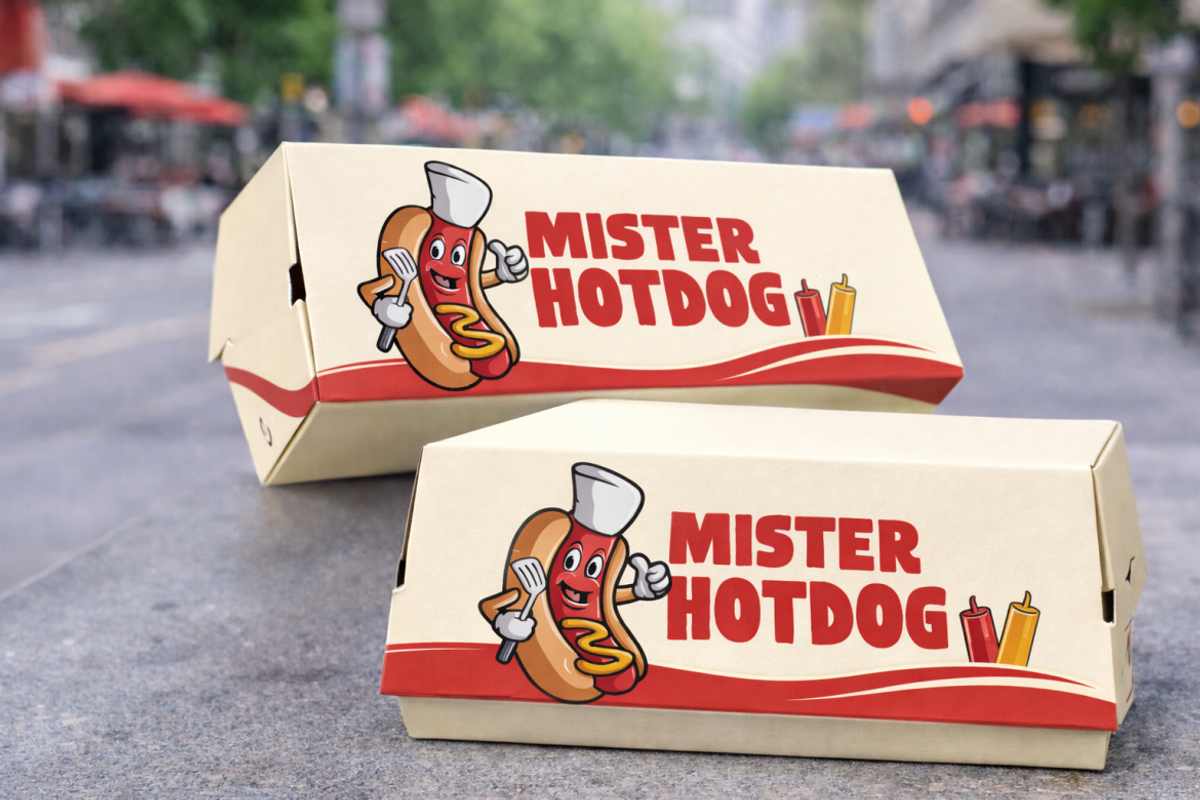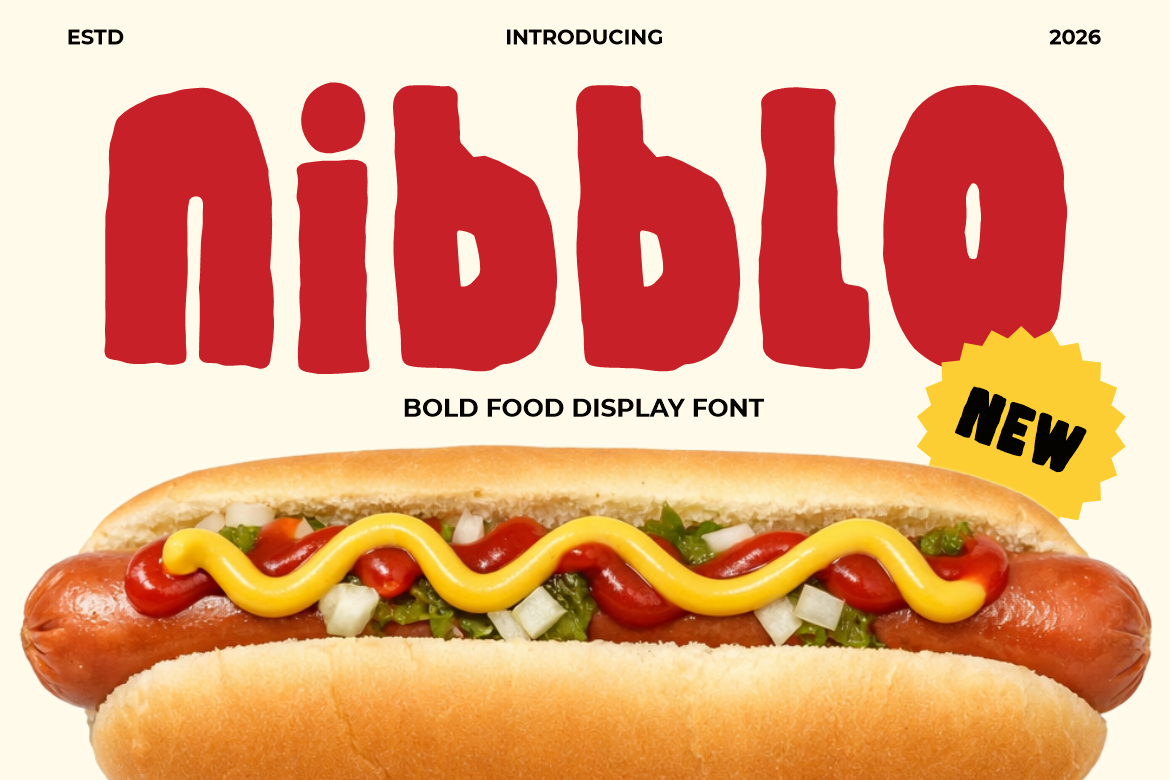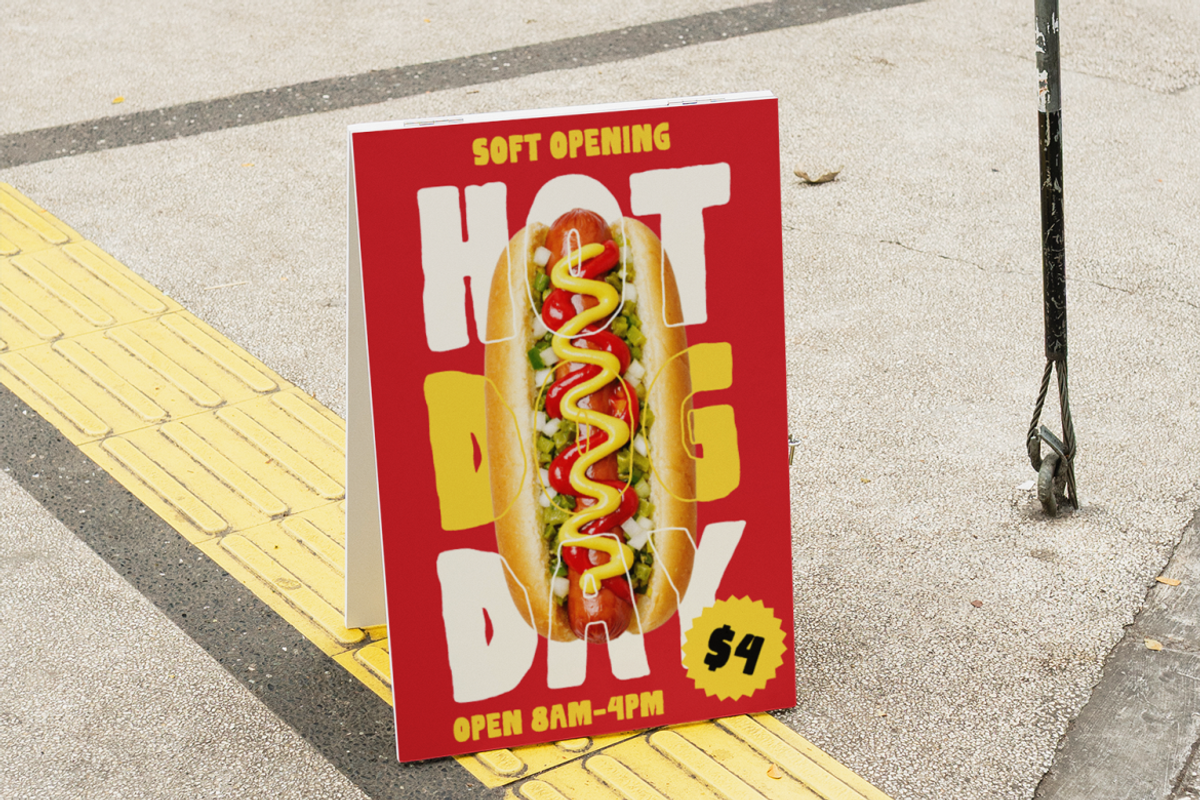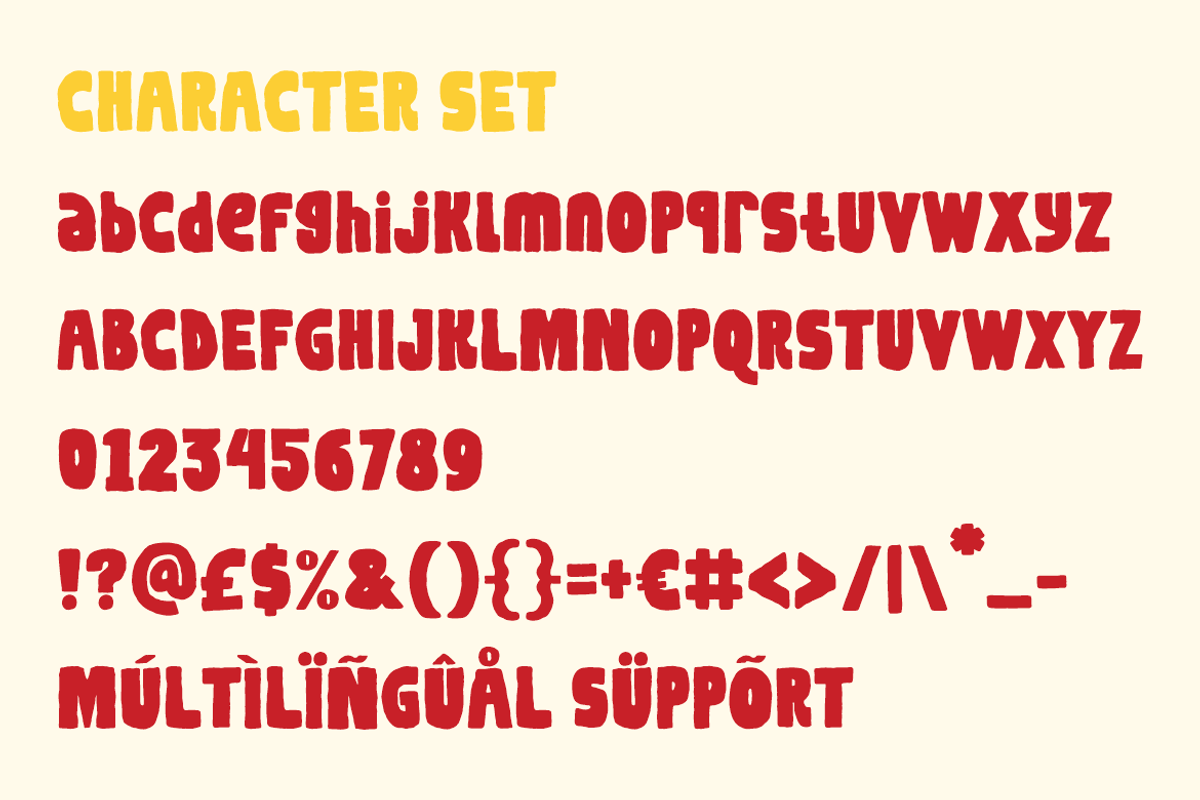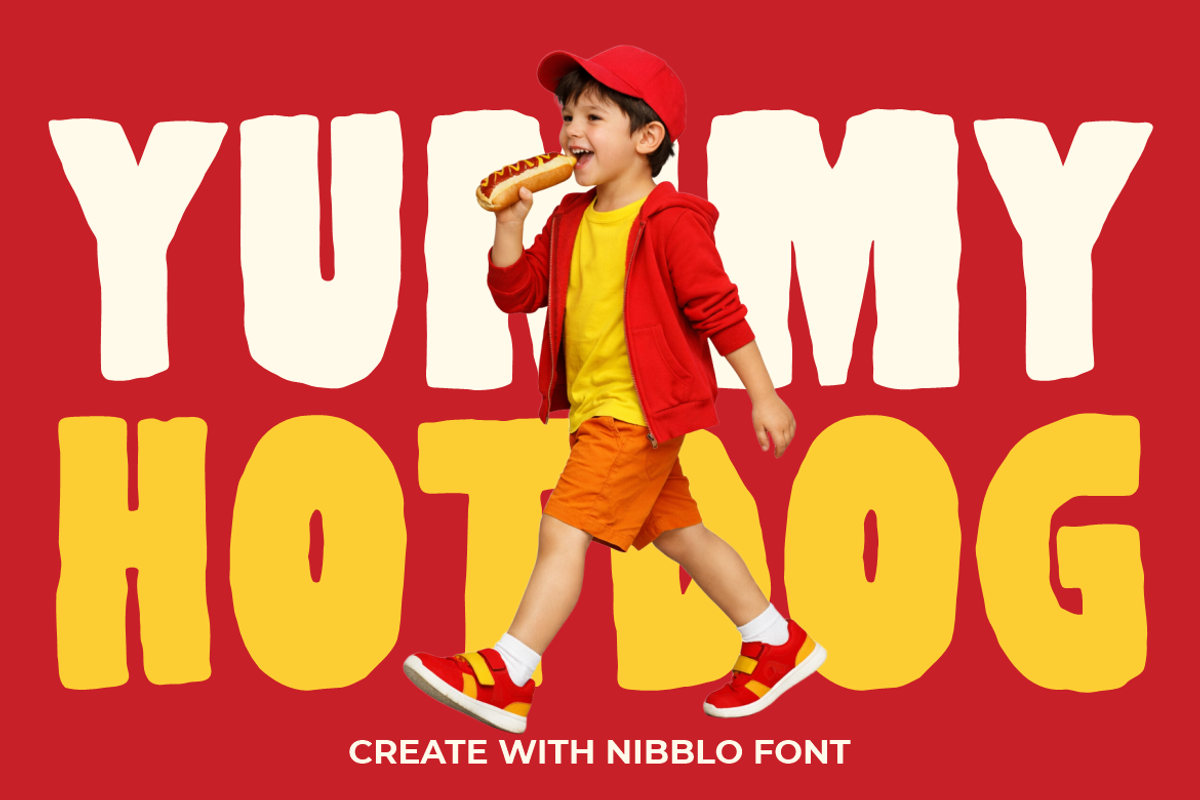
Nibblo Doodle Font
Nibblo Doodle Food Font features thick, uneven strokes with a hand-drawn texture. The letterforms appear chunky and slightly irregular, creating strong personality. Stroke weight stays heavy across each character, with minimal contrast. Edges feel organic rather than geometric, giving a casual crafted impression. The proportions look wide and compact, with short ascenders and descenders. This structure keeps words solid and easy to stack in logo layouts. Counters remain open enough to maintain readability at large sizes. The texture suggests a doodle-inspired style with playful energy. The overall look fits bold display typography with a fun, street-food vibe. It leans toward modern casual branding instead of formal design language. Nibblo Doodle Food Font delivers strong impact for businesses that want loud and friendly visuals.
This font works perfectly for hotdog stands, fast food stalls, snack brands, and street food businesses. It supports logo design, packaging, posters, and promotional headlines. Short phrases feel powerful and attention-grabbing in storefront signage. The bold structure also fits menus, price boards, and advertising banners. Designers can use it for stickers, greeting cards, invitations, and book covers. It performs well in magazine titles and movie titles that require bold character. The playful shape communicates fun, appetite appeal, and casual comfort. The font suits brands targeting families, kids, and everyday customers. Nibblo Doodle Food Font strengthens brand identity with expressive, chunky lettering that stands out in busy environments.